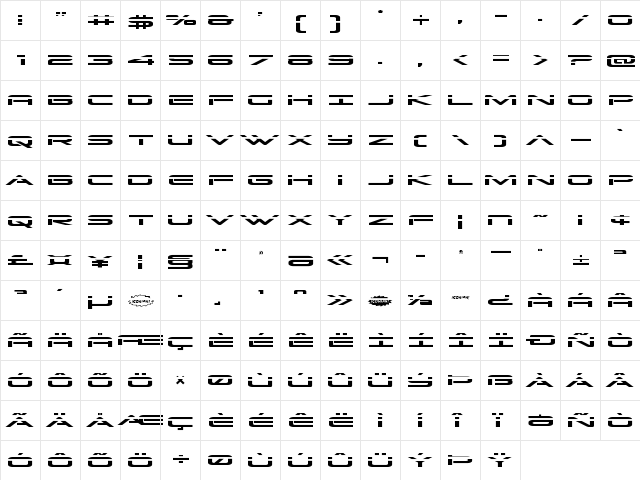
Grand Sport Laser Regular
Design Context for Grand Sport Laser Typeface
Grand Sport Laser has the bold swagger of sports branding: strong, assertive letterforms designed to dominate headlines and jerseys alike.
Built for sports team identities, athletic apparel, event posters, and high-energy promotional material.
Pro Tip: Grand Sport Laser thrives on contrast — try it large, bold, and tight against a clean background for maximum visual impact.